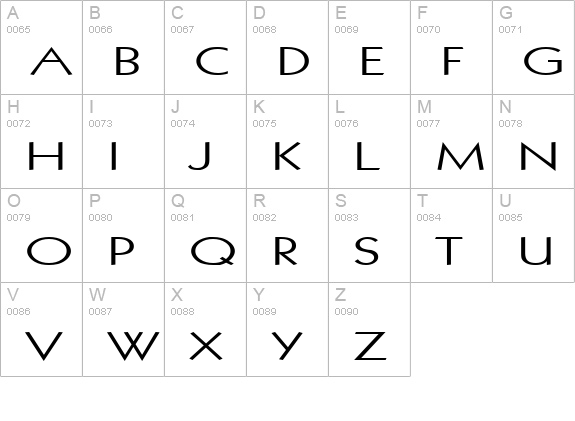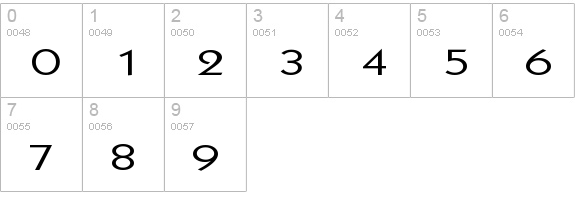
Geo 112 Extended Normal is the standard, neutral, extended-width variant in the Geo typeface family \xE2\x80\x94 well suited to general body text, paragraphs, and standard typographic work.
Geo 112 Extended Normal font is a sleek and versatile typeface that is perfect for a wide range of design projects. With its clean lines and modern aesthetic, this font is sure to make a statement. Whether you're designing a website, creating a logo, or working on a print project, Geo 112 Extended Normal is a great choice. This font is freely available to download at FontsMarket.com, making it easy to access and use in your projects. Its extended normal style allows for easy readability and a professional look, making it suitable for both digital and print applications. Add a touch of sophistication to your designs with Geo 112 Extended Normal font.